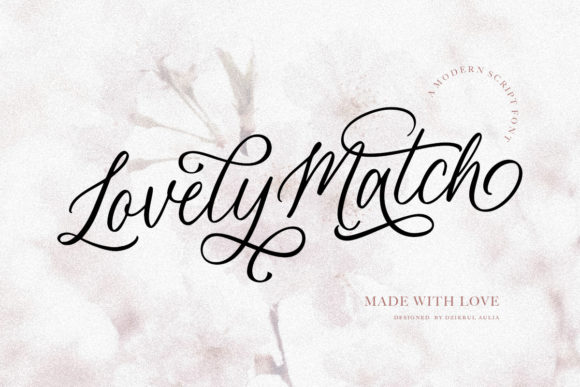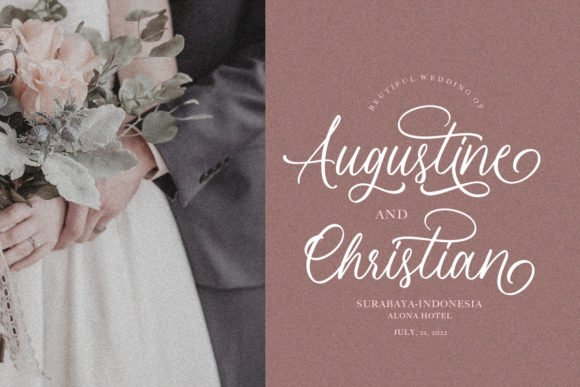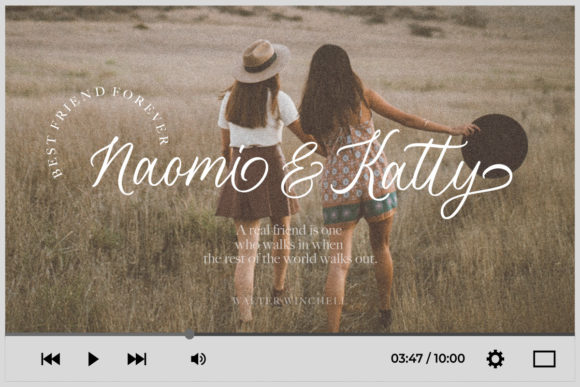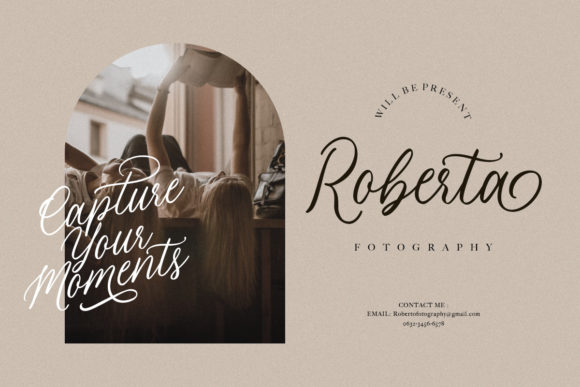
Lovely Match Font: Elegant Script for Wedding & Logo Design
About the Lovely Match Font
Welcome to the world of Lovely Match Font, a typeface that will inspire your next great project. Lovely Match is a stylish and delicate script font. It is the best choice for creating eye catching logos, branding and quotes. Every letter has a unique and beautiful touch, which will make your design come alive!
Lovely Match thrives in applications requiring a touch of elegance and sophistication. It excels in logo design, short headlines, and wedding invitations, where its delicate forms add a sense of refined charm. However, its intricate details make it unsuitable for body text or UI elements where readability is paramount. Avoid using it for long paragraphs or small sizes.
Its inherent personality is best described as romantic and graceful. Brands seeking to project a feeling of luxury, femininity, or handcrafted quality will find Lovely Match a perfect fit. Consider pairing it with a clean sans-serif like Lato for a modern contrast, or a classic serif such as Garamond for a more traditional feel.
For a playful yet sophisticated approach, a geometric sans-serif like Montserrat could complement its curves. Remember to maintain sufficient contrast in size and weight between Lovely Match and its paired font to ensure optimal readability and visual harmony.
Lovely Match Font Usage Examples
Lovely Match Font Example